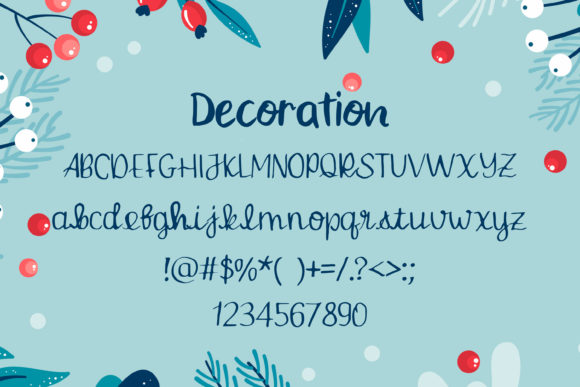
Decoration Font: Elevate Your Designs with a Simple yet Elegant Display Font
Are you a designer or crafter looking for a font that can add a touch of elegance and sophistication to your creations? Look no further than Decoration Font. This beautifully crafted display font is perfect for a wide range of design projects, from wedding invitations and branding materials to social media graphics and more.
What is Decoration Font?
Decoration Font is a simple and neat lettered display font that is designed to make a statement. Its clean lines, elegant curves, and precise lettering make it an incredibly versatile font that can be used for a variety of design projects. Whether you’re looking to create a bold and eye-catching headline or a beautiful and delicate title, Decoration Font is the perfect choice.
Why Choose Decoration Font?
So, why should you choose Decoration Font for your design projects? Here are just a few reasons why this font is an incredibly valuable asset to your font library:
- Versatility: Decoration Font is incredibly versatile and can be used for a wide range of design projects, from formal events and branding materials to social media graphics and more.
- Elegance: The font’s clean lines, elegant curves, and precise lettering make it a beautiful and sophisticated addition to any design.
- Readability: Despite its elegant and delicate appearance, Decoration Font is incredibly readable, even at small sizes.
How to Use Decoration Font
Using Decoration Font in your design projects is easy. Here are a few tips to get you started:
- Pair it with Other Fonts: Decoration Font pairs beautifully with other fonts, making it easy to create stunning and unique typography combinations.
- Use it for Headlines: Decoration Font is perfect for headlines and titles, where its elegant and sophisticated appearance can really shine.
- Add it to Your Brand: If you’re looking to create a consistent brand identity, consider adding Decoration Font to your brand guidelines.
Design Ideas Using Decoration Font
Decoration Font is incredibly versatile, and can be used for a wide range of design projects. Here are a few ideas to get you started:
- Wedding Invitations: Use Decoration Font to create beautiful and elegant wedding invitations that set the tone for a stunning and memorable event.
- Branding Materials: Add Decoration Font to your branding materials, such as business cards, letterheads, and more, to create a consistent and sophisticated brand identity.
- Social Media Graphics: Use Decoration Font to create stunning and eye-catching social media graphics that are sure to grab attention.
- Signage: Decoration Font is perfect for signage, where its elegant and sophisticated appearance can really shine.
In conclusion, Decoration Font is a beautifully crafted display font that is perfect for designers and crafters looking to add a touch of elegance and sophistication to their creations. Its versatility, readability, and ease of use make it an incredibly valuable asset to your font library. Whether you’re looking to create stunning wedding invitations, branding materials, social media graphics, or more, Decoration Font is the perfect choice.